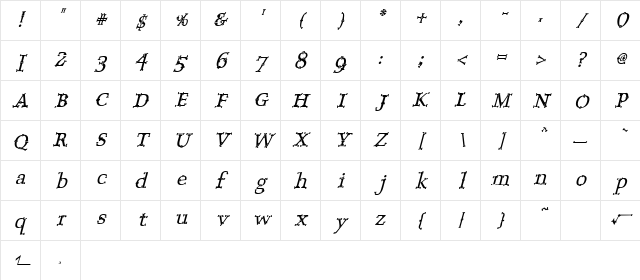
OsseousSlanted is a composed and adaptable typeface that performs quietly and consistently across a wide range of design contexts. The slanted form adds forward momentum and visual energy.
Pro Tip: Use OsseousSlanted for emphasis, pull quotes, and subheadings where its slanted energy can add rhythm to the layout.